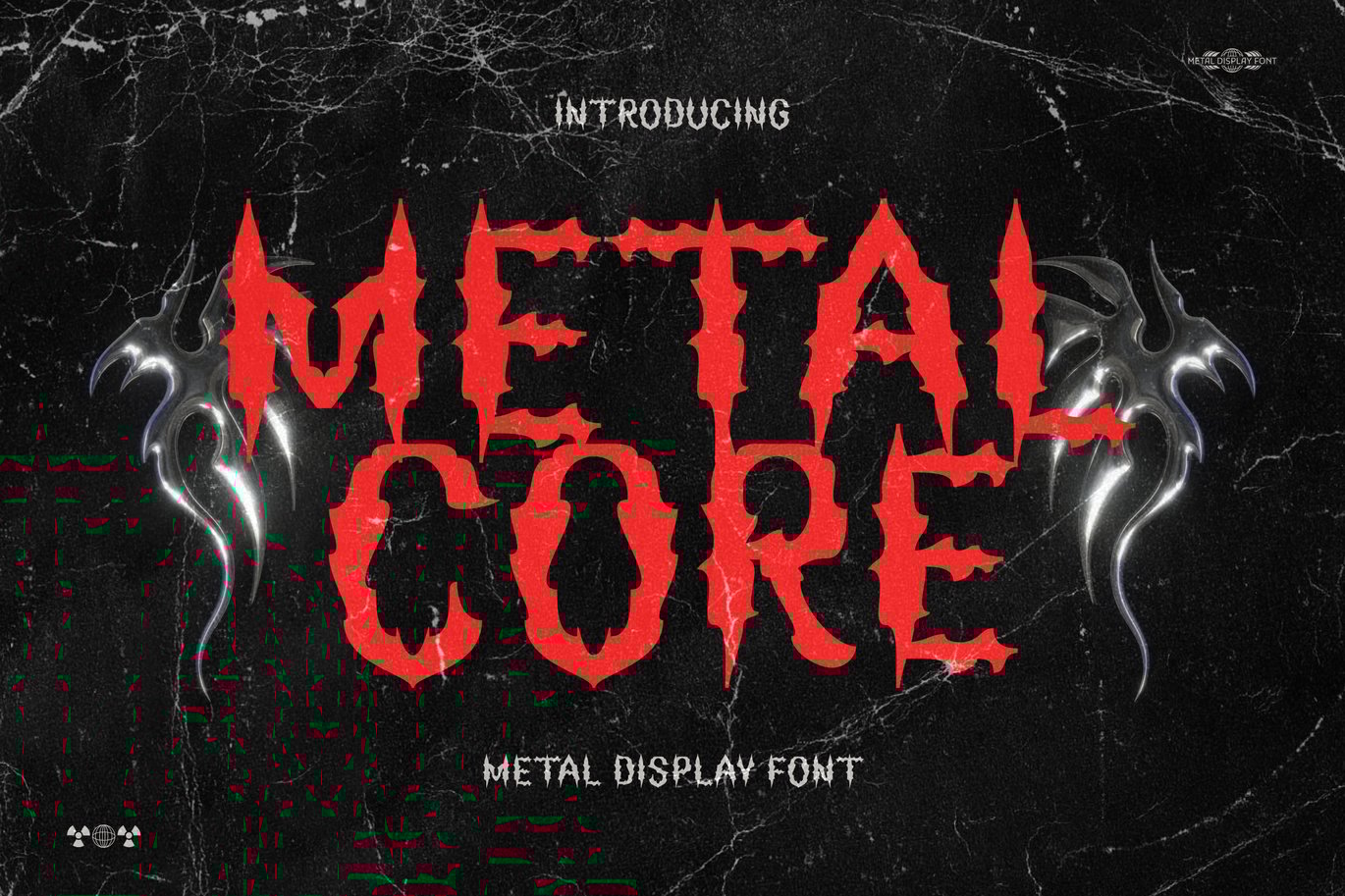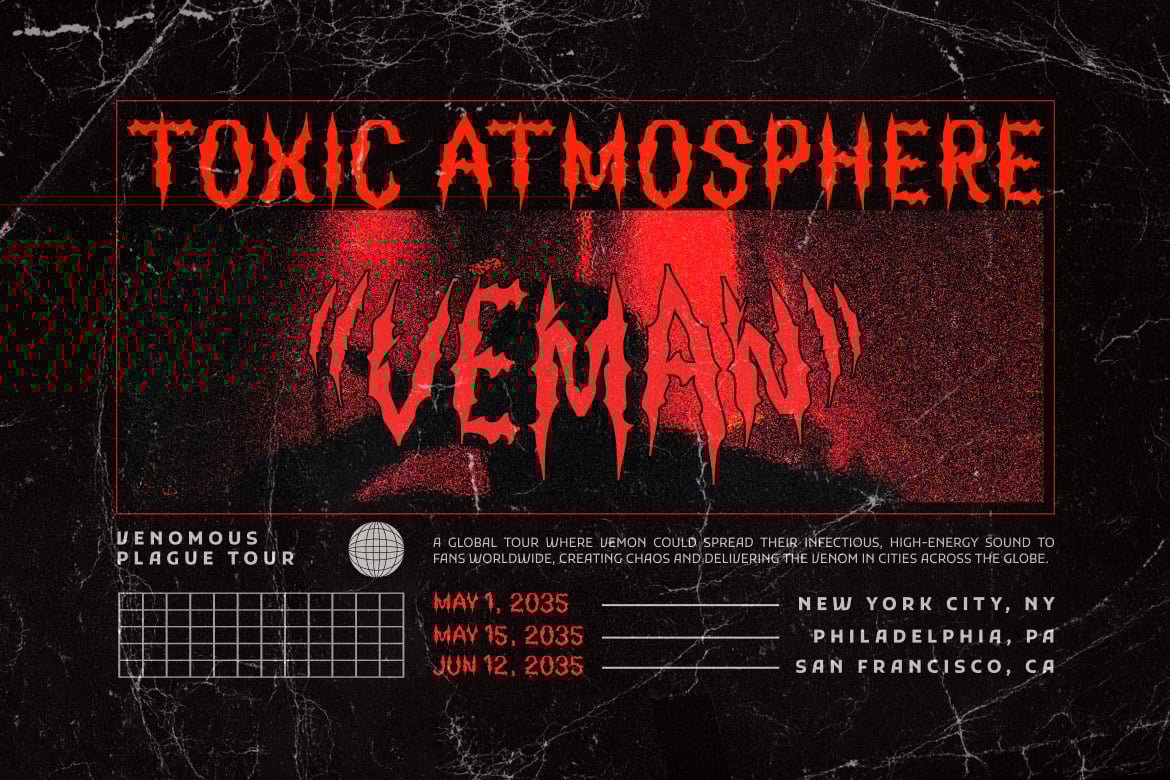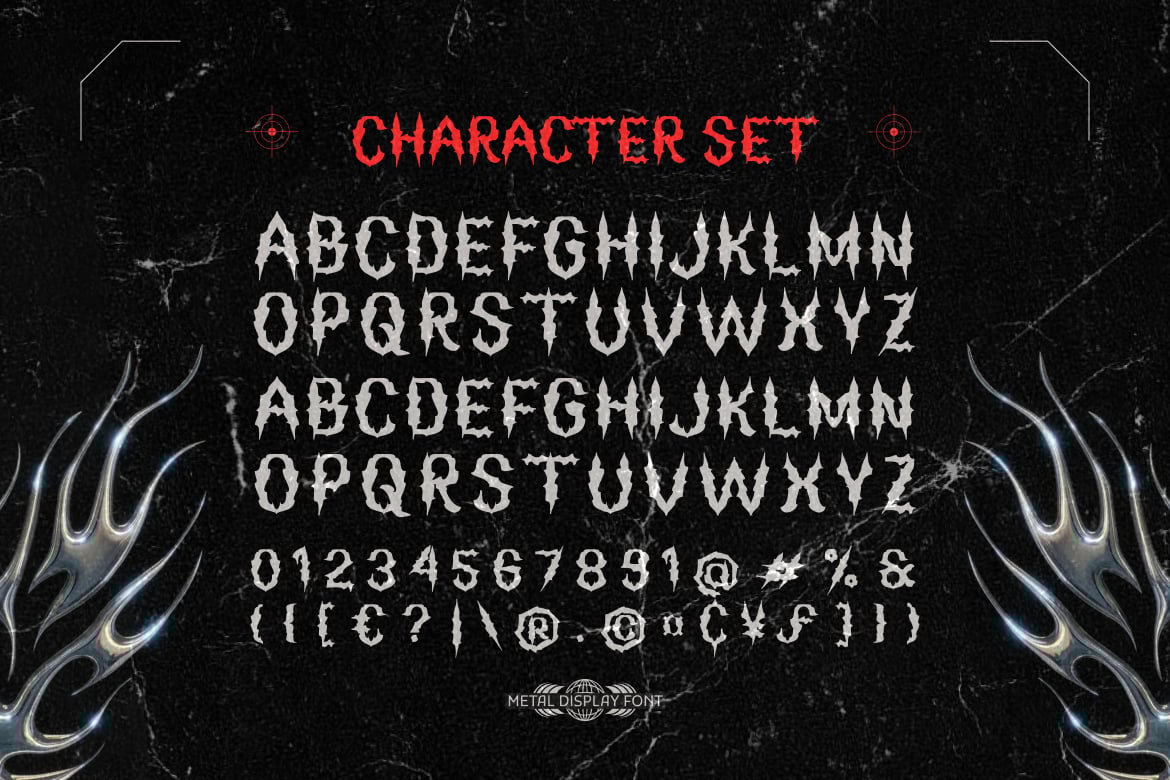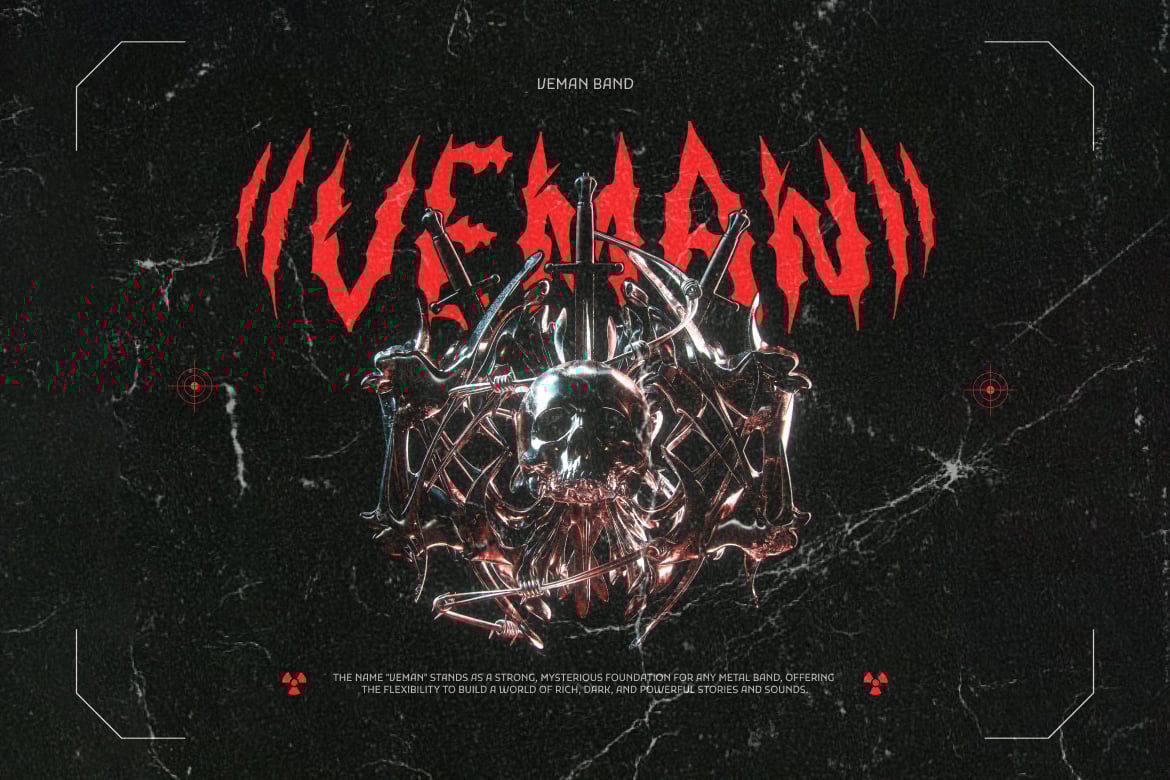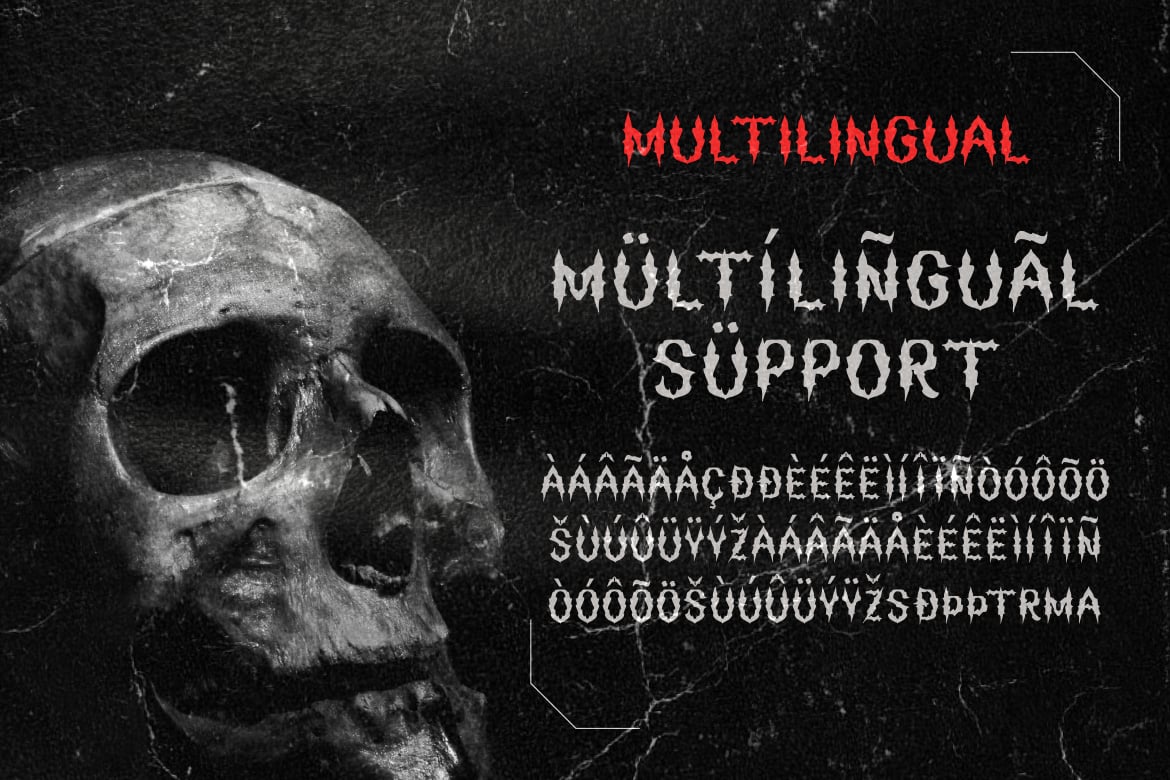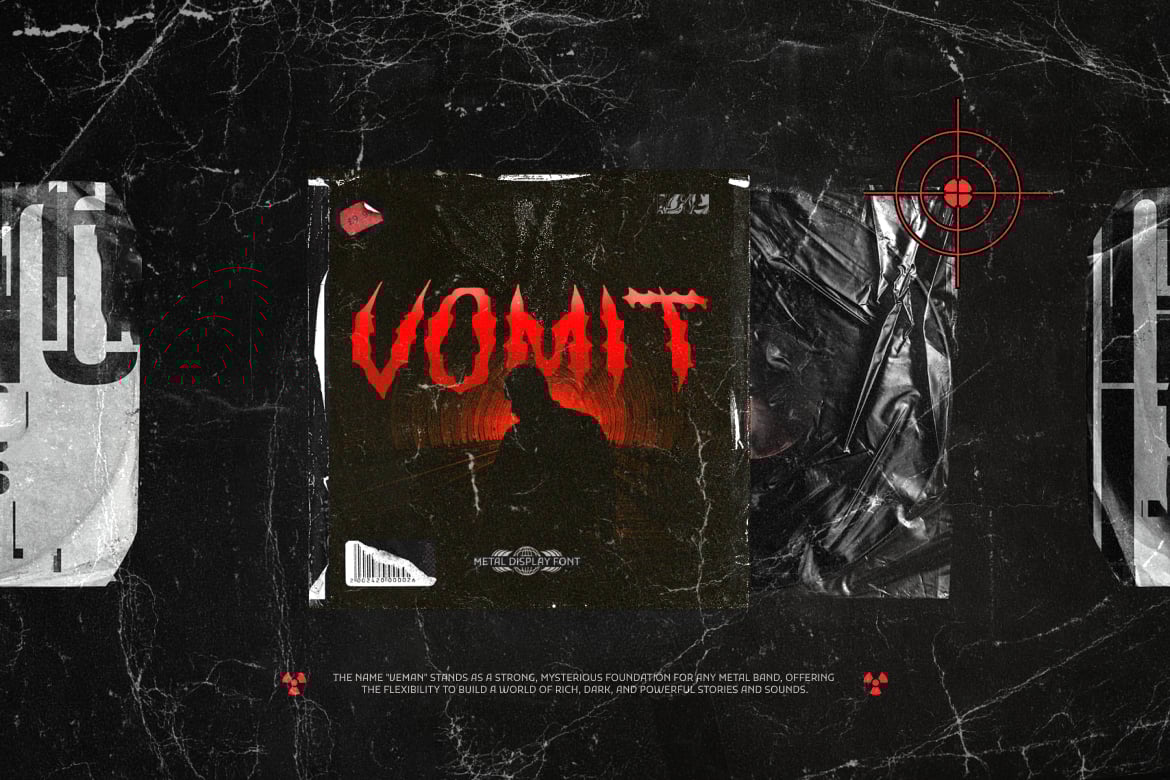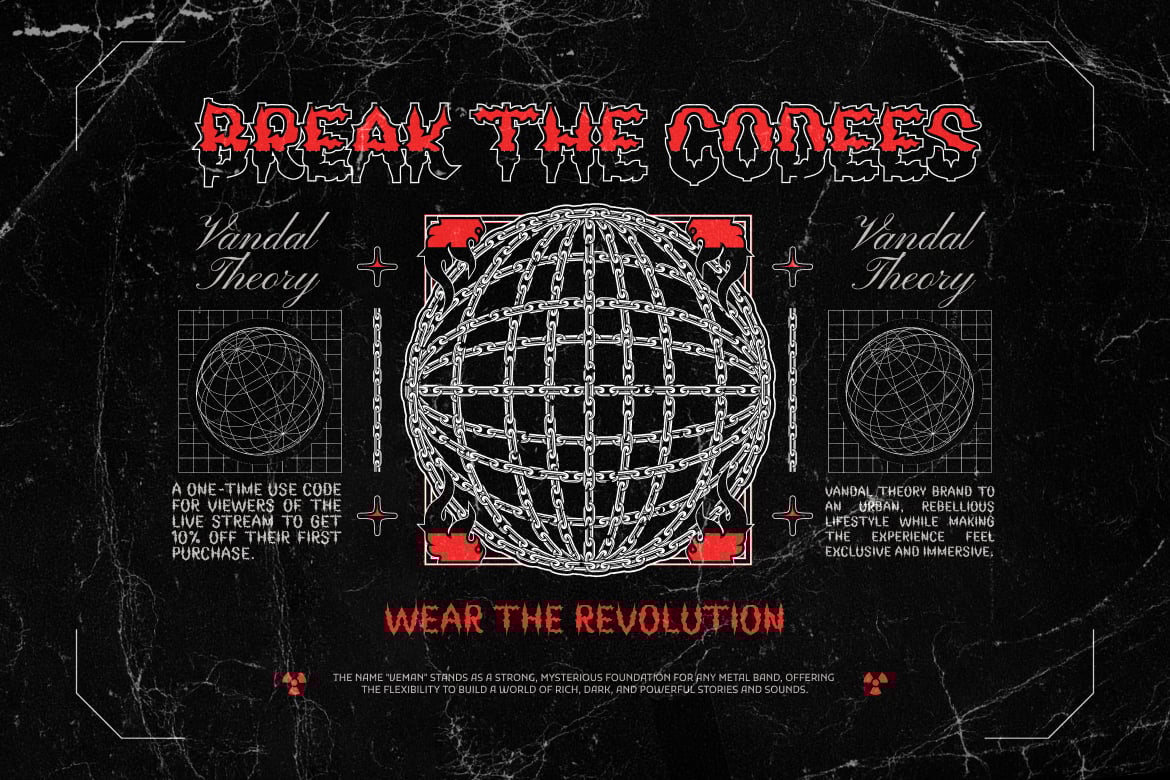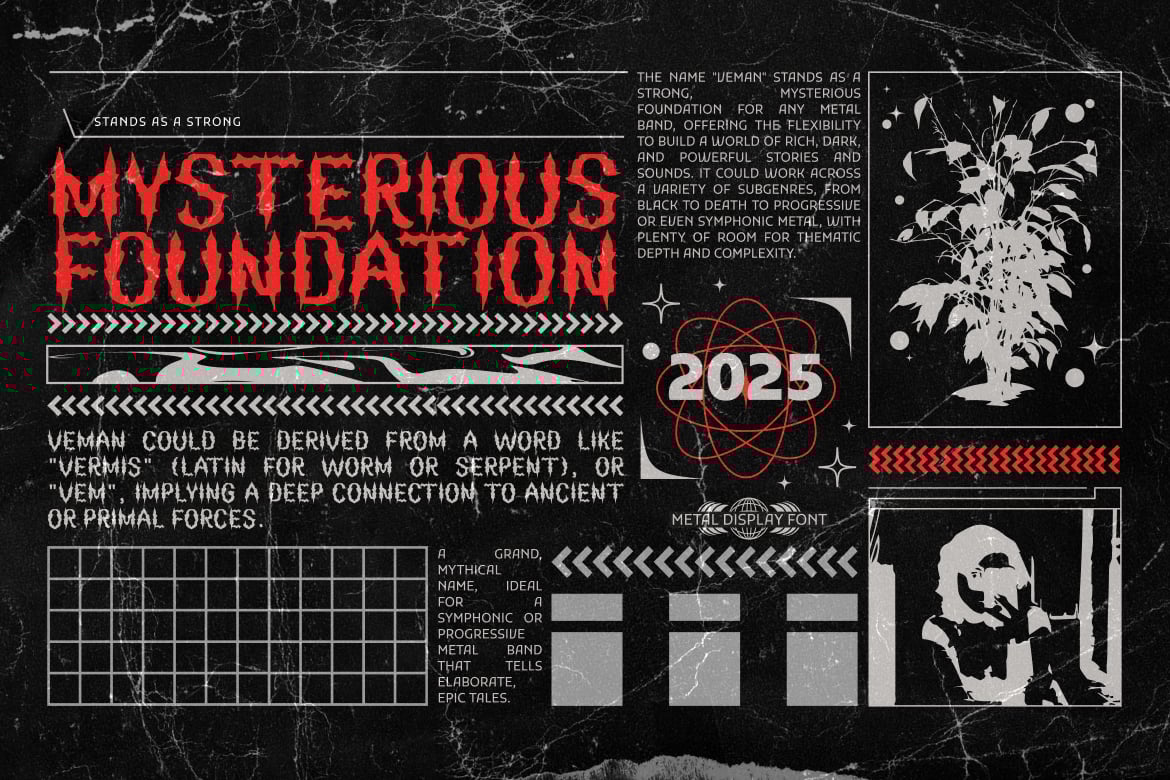
Metalcore – Heavy Metal Font
Metalcore – Heavy Metal Display Font
Bring the raw power and rebellious spirit of heavy metal to your designs with Metalcore, a bold and brutal display font inspired by the energy of metal music. Perfectly blending gothic blackletter elements with a modern edge, this font is tailored for band logos, album covers, merchandise, and more.
- Heavy & Bold: Strong, impactful strokes that scream authority and intensity.
- Gothic Blackletter Style: Adds a dramatic and dark tone to any design.
- Decorative Details: Intricate design elements for a striking visual presence.
- Multilingual Support: Covers a variety of languages to suit global projects.
- Metal Band Logos: Amplify your band’s identity with a fierce logo design.
- Album Covers: Create eye-catching visuals that capture the dark essence of heavy metal.
- Merchandise & Apparel: Ideal for T-shirts, hoodies, and other band merch.
- Posters & Flyers: Stand out in promoting concerts, festivals, or horror events.
- Tattoo & Branding Designs: Add an edgy, rebellious aesthetic to your projects.
- Edgy and Powerful: Designed for metalheads, rock enthusiasts, and underground bands.
- Versatile Style: Fits perfectly with horror themes, dark gothic vibes, and grunge aesthetics.
- Eye-Catching Design: Commands attention with its dramatic and intricate strokes.